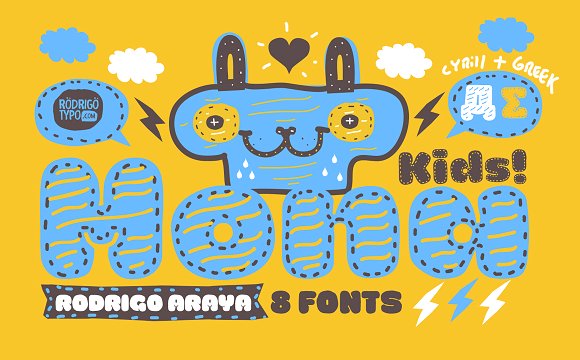
Embrace the magic of La Mona Kids Font, a playful and vibrant display font that will add a touch of whimsy to your designs. Specially crafted for children-focused projects, this font exudes an aura of imagination and wonder, capturing the essence of childhood dreams. Unleash your creativity and transport your audience to a world of enchantment with La Mona Kids.
With its charming and inviting appearance, La Mona Kids Font is perfect for projects that target young audiences. Whether you're designing posters for children's events, creating eye-catching social media graphics, or developing educational materials, this font will elevate your designs and leave a lasting impression.
La Mona Kids Font features extensive language support, including Cyrillic and Greek characters, making it a versatile choice for multilingual projects. The font's characters dance and play, creating a sense of movement and energy that will captivate your audience. Dive into the world of imagination and let La Mona Kids Font ignite your creativity.